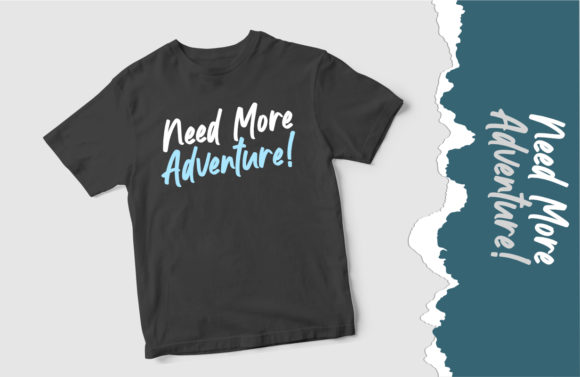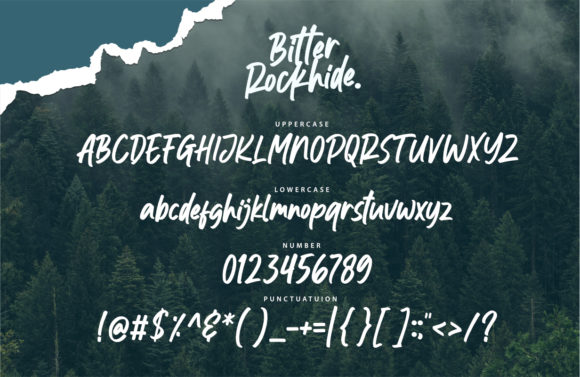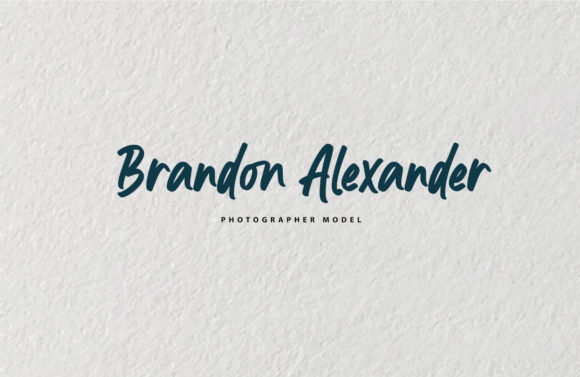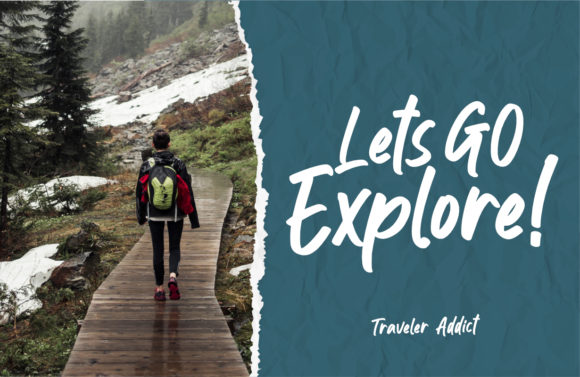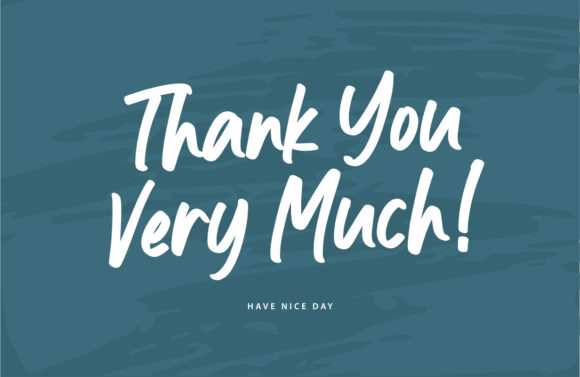
Bitter Rockhide Font
About Bitter Rockhide Font
Bitter Rockhide is a casual, fun handwritten font, created by using a brush pen. Clean and a little bit quirky, this font is the perfect fit for all of your logos, branding, social media, and crafty DIY projects.